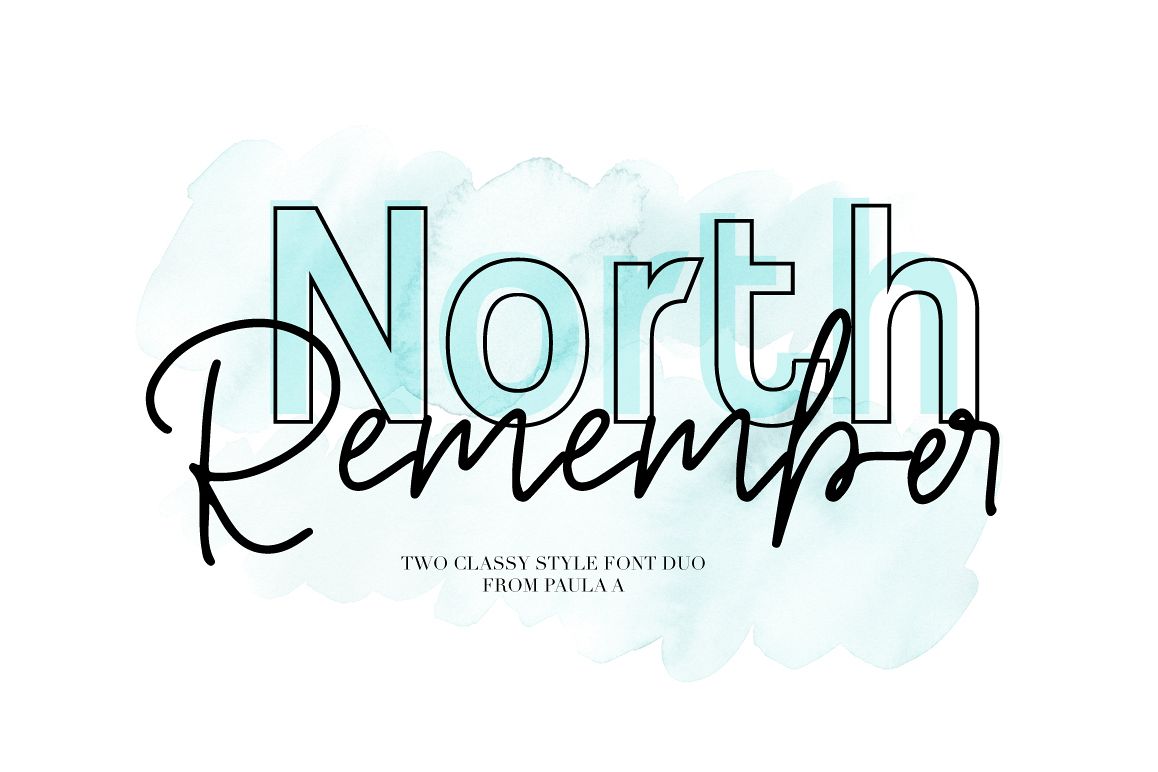
introducing North Remember font Duo - A fashionable font perfect for high impact headlines.
Every single letter has been creative carefully and Perfectly Playful new font pair. This font is a perfect script designed for making your set of invitations, Brand, blog posts, and more completely beautiful.
The script has an alternate character set.